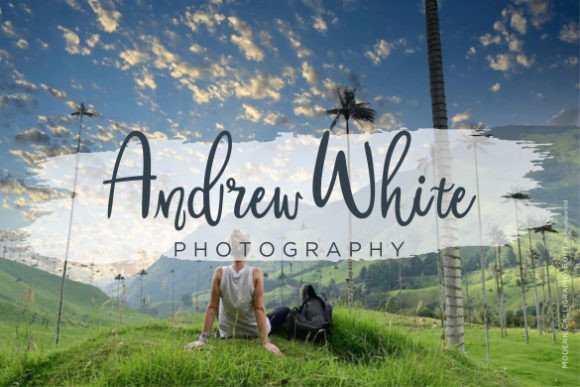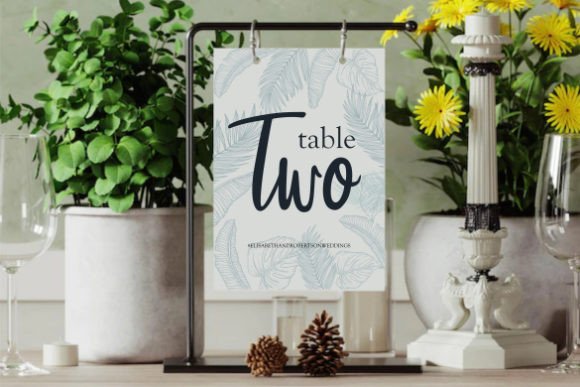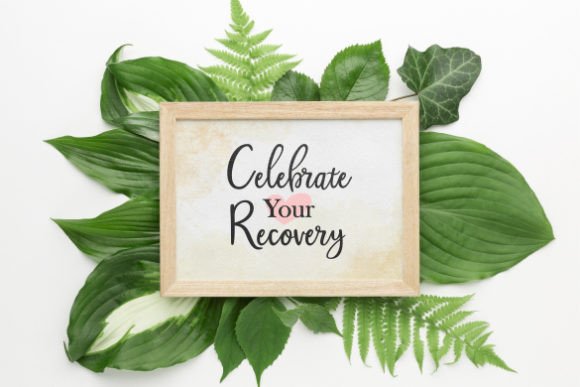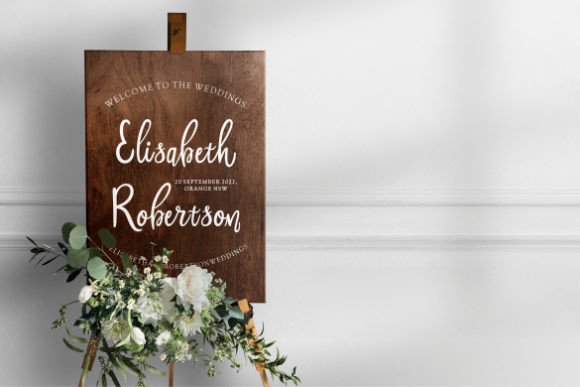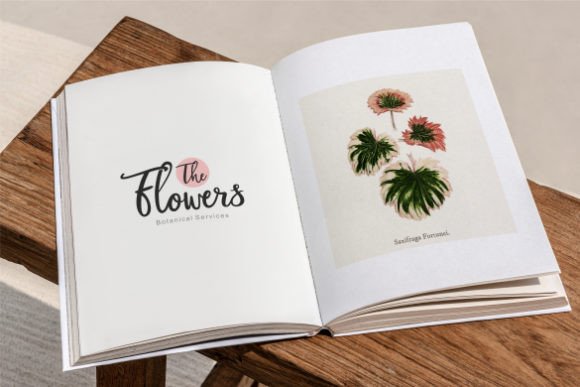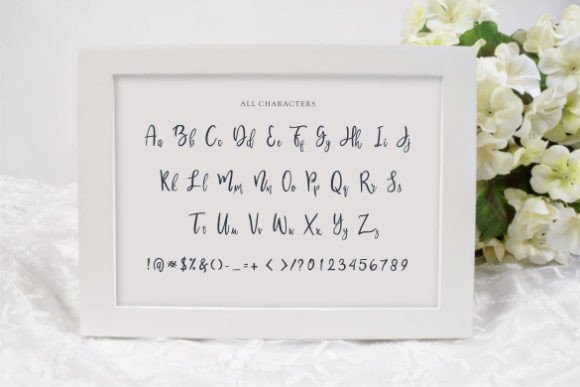
The Perfect Font for Your Next Project: Bridesmaids Font
Have you ever been stuck on a design project, searching for the perfect font to bring it all together? You know that feeling when you finally stumble upon the perfect combination of style and elegance, and you can’t wait to see it come to life? That’s exactly what happens when you discover the Bridesmaids Font – an exquisite handwritten font that exudes classic calligraphic charm while feeling refreshingly modern.
Designed to elevate your projects to new heights, Bridesmaids Font is a valuable tool for designers looking to add a touch of sophistication and whimsy to their work. Whether you’re creating a wedding invitation, a branding package, or a social media post, this font is sure to captivate your audience and leave a lasting impression. So why settle for ordinary when you can have extraordinary with the Bridesmaids Font?
Bridesmaids Font Key Features
- Font Family: Bridesmaids is a custom, handwritten font designed by Emily McDowell.
- Size: The font family includes multiple weights and styles, ranging from 200 to 800, with each weight available in Regular and Italic styles.
- Unique Characteristics: Bridesmaids features a whimsical, handwritten feel with subtle imperfections and flair, making it ideal for creative and emotional projects.
Bridesmaids Font Review
As a designer, I was excited to try out the Bridesmaids Font, hoping it would bring a touch of whimsy and romance to my projects. Overall, I’d say it’s a decent addition to any font collection, but it’s not without its flaws.
- Unique flair: The Bridesmaids Font has a distinct, cursive feel that’s perfect for adding a touch of personality to wedding invitations, greeting cards, or other special occasion designs.
- Expressive connections: The connections between letters are well-designed, making it easier to read and recognize the font at larger sizes.
- Good for titles and headings: The Bridesmaids Font looks great in titles and headings, where its flair and personality can really shine.
- May be too ornate for body text: While the font looks great in titles and headings, it can be overwhelming and difficult to read when used in large blocks of body text.
- Lack of versatility: The Bridesmaids Font is quite stylized and may not be suitable for a wide range of design projects beyond wedding-related themes.
While the Bridesmaids Font has its strengths, I wouldn’t recommend it for general use. It’s better suited for specific projects that require a touch of romance and whimsy, like wedding designs or greeting cards. If you’re looking for a more versatile font, you may want to consider other options. However, if you’re working on a project that requires a unique, cursive feel, the Bridesmaids Font could be a great choice.
To get the most out of the Bridesmaids Font, use it in conjunction with other playful, handwritten fonts. Experiment with different font sizes and styles to create a unique and eye-catching design. You can also use the font in combination with illustrations and graphics to add visual interest.
The Bridesmaids Font is perfect for:
– Wedding invitations and save-the-dates
– Wedding websites and social media graphics
– Bridal shower invitations and decorations
– Wedding planning and organization templates
Alternatives to Bridesmaids Font
Great Vibes is a beautiful, elegant script font perfect for wedding invitations, save-the-dates, and other wedding stationery. It’s a great choice when you want a classic, sophisticated look. Great Vibes is a more versatile font compared to Bridesmaids Font, offering a wide range of styles and ligatures.
Carolyna Pro is a modern, elegant script font ideal for wedding invitations, menus, and other wedding materials. It’s a great choice when you want a clean, sophisticated look. Carolyna Pro is more versatile than Bridesmaids Font, offering a wide range of styles, ligatures, and language support.